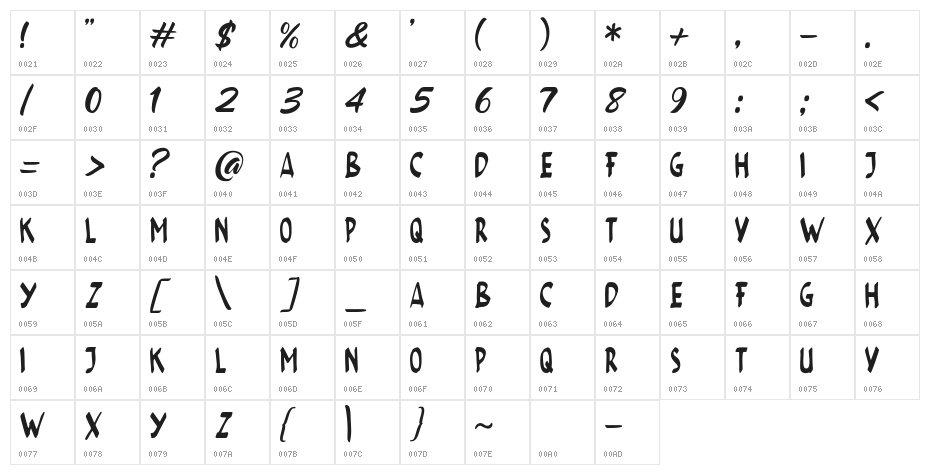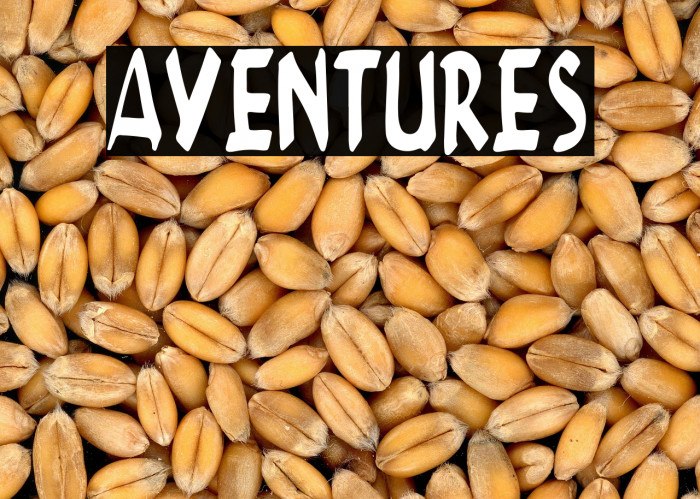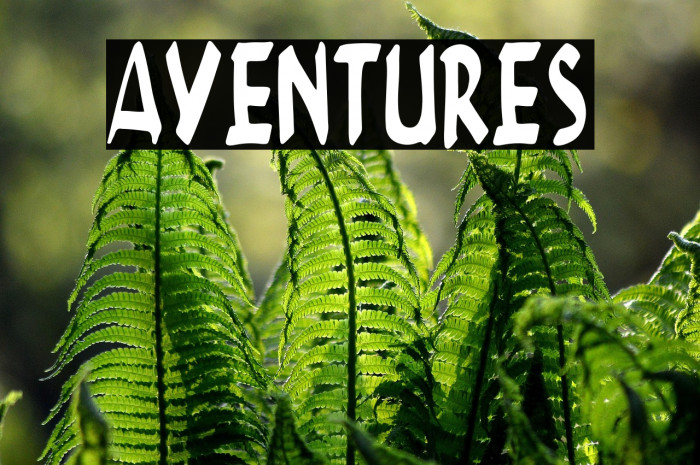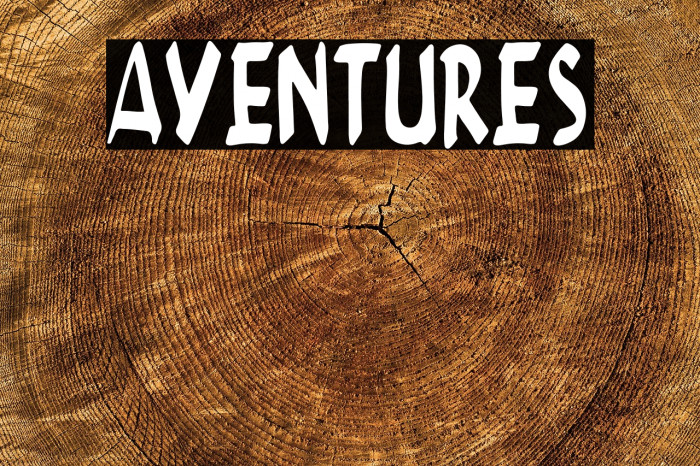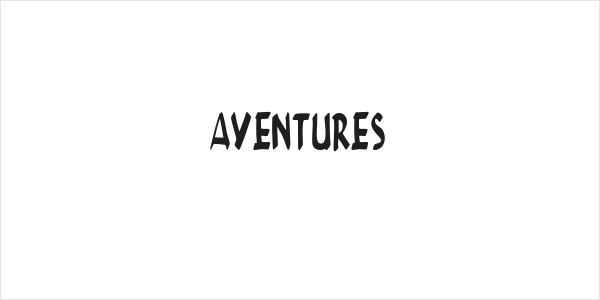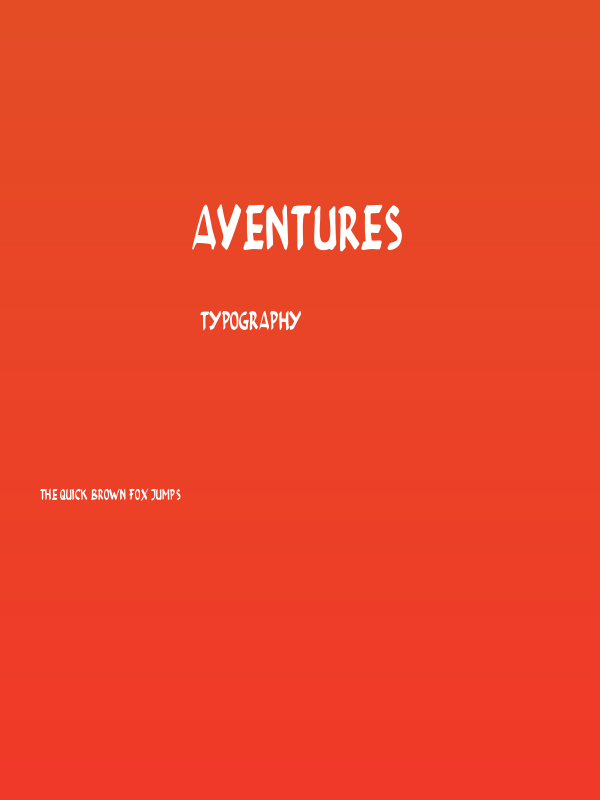
AVENTURES Font
AVENTURES Description
This font features a bold and dynamic style with a hand-drawn appearance, characterized by its irregular, playful strokes and slightly slanted characters. The uppercase letters are prominent and expressive, while the lowercase letters maintain a consistent flow, adding to the overall energetic feel. The numbers and special characters complement the alphabet with their quirky and artistic design, making the font suitable for creative and informal applications. Its unique style captures attention and conveys a sense of adventure and spontaneity.
| Proposed Projects | Ideal for posters, children's books, adventure-themed branding, and creative social media graphics. |